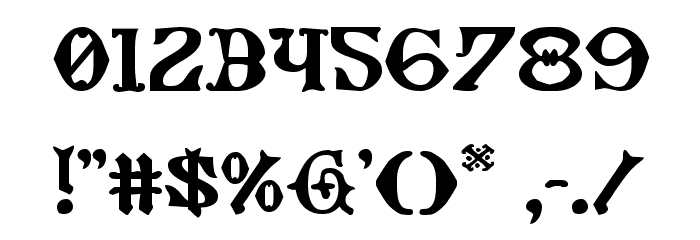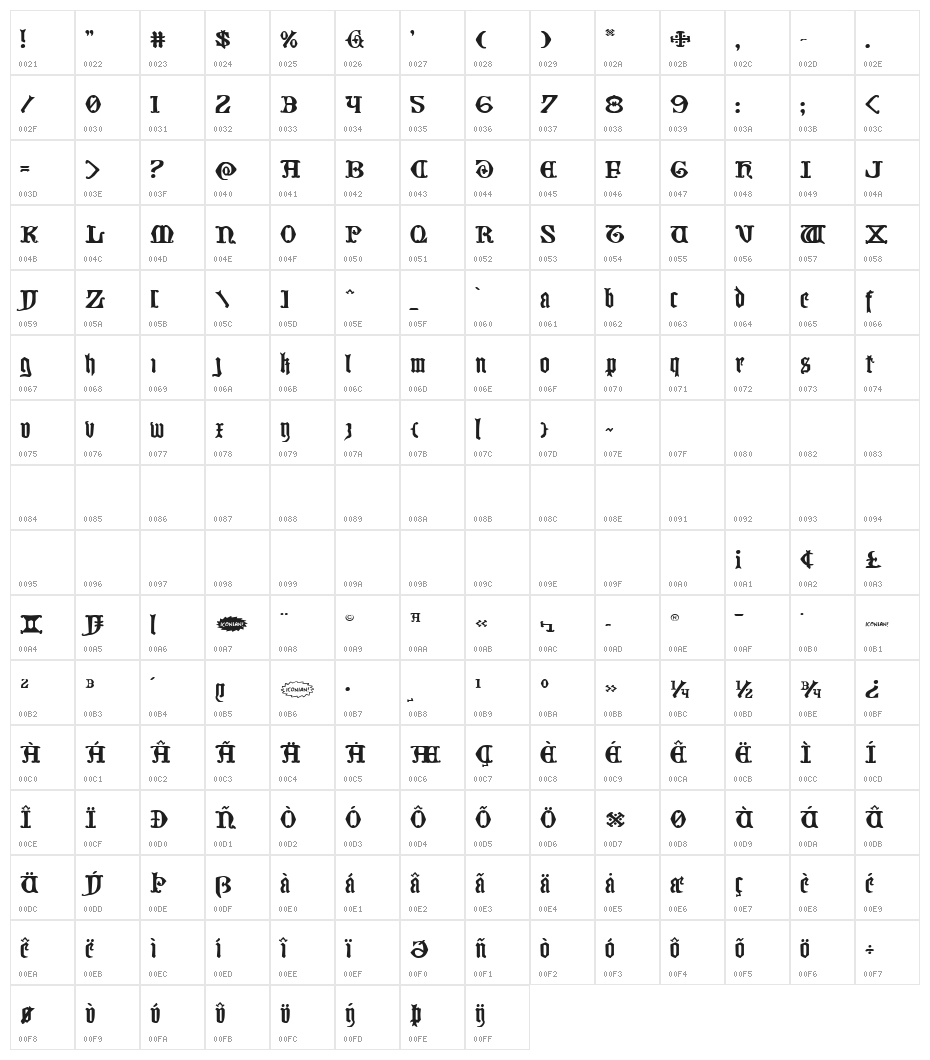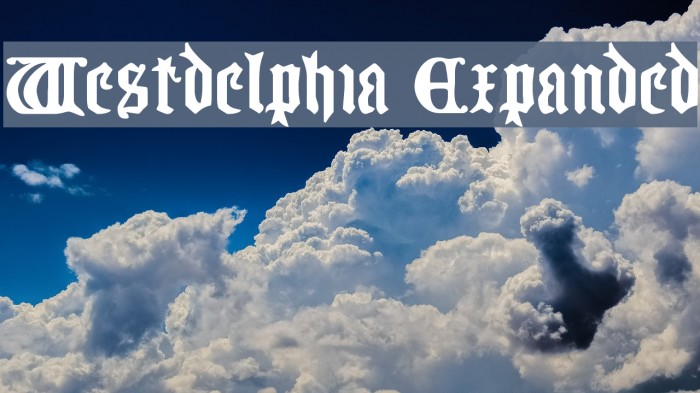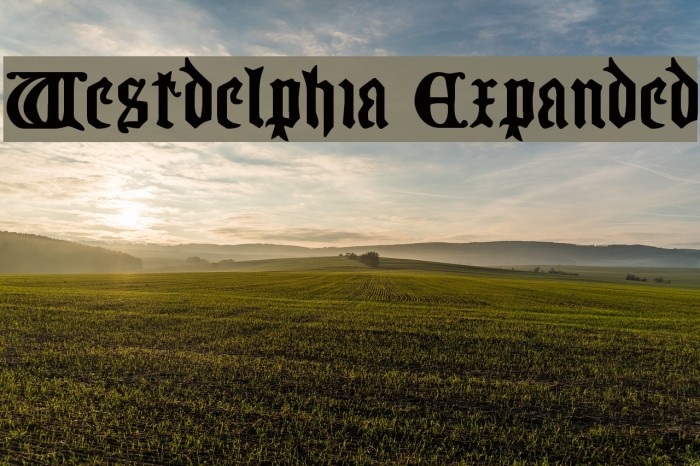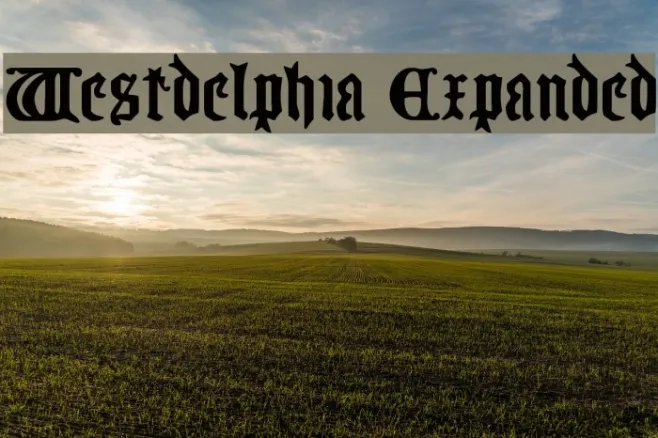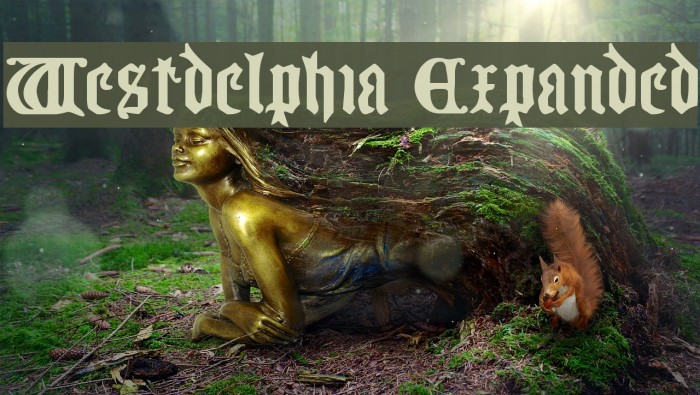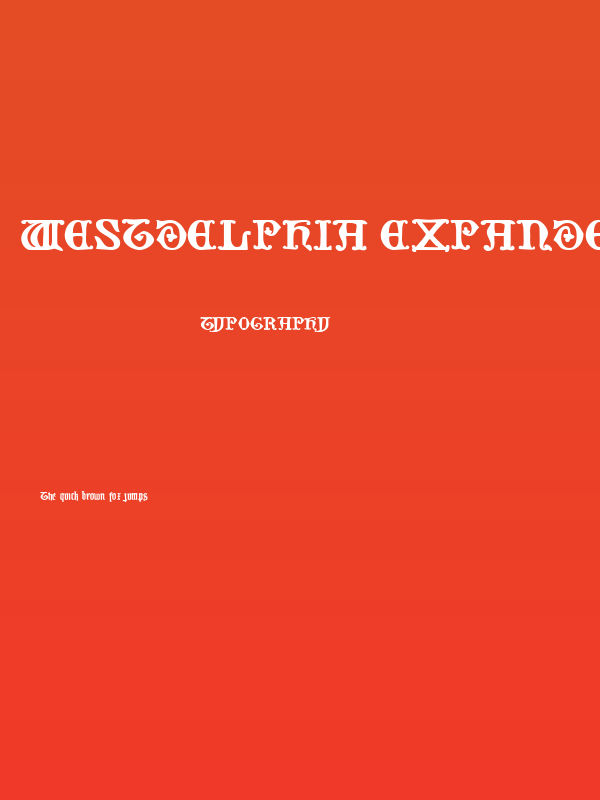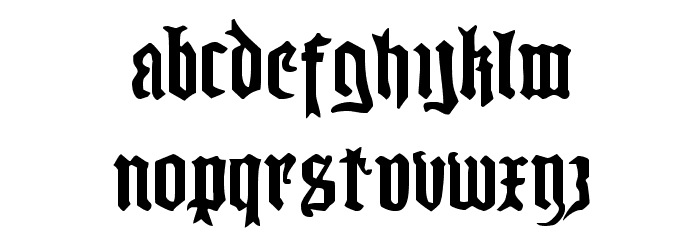
Westdelphia Expanded Font
Westdelphia Expanded Description
This font features a bold and dramatic style with a distinct blackletter influence. The characters are ornate and intricate, showcasing a blend of traditional and modern elements. The uppercase letters exhibit strong, angular lines with decorative flourishes, while the lowercase letters maintain a consistent style with slightly softer curves. The numerals are bold and match the overall aesthetic, ensuring readability. Special characters are uniquely styled, adding to the font's decorative appeal. This typeface is well-suited for projects that require a touch of elegance and historical flair.